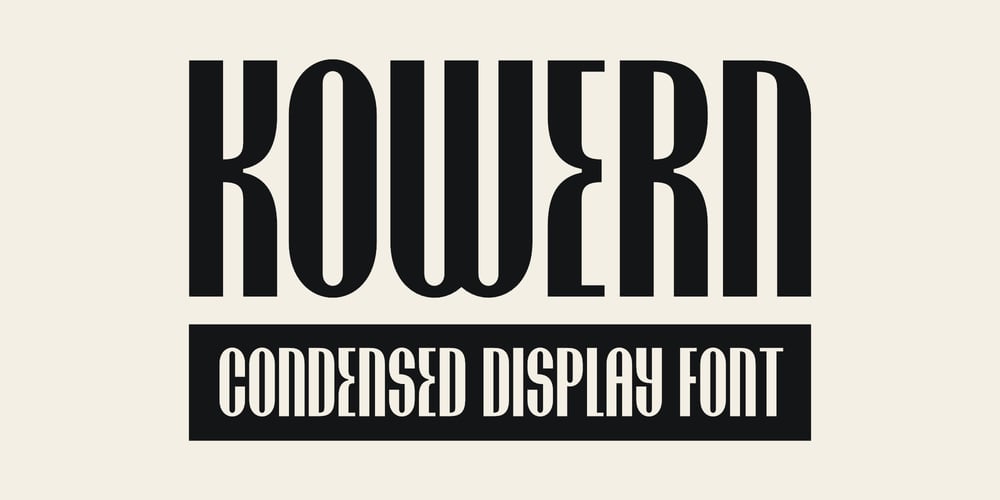
Kowern
Kowern font
Kowern Font Family was designed by Szymon Mandziarz and published by SMZ Design. Kowern contains 2 styles and family package options. Kowern is a modern and condensed font with a distinct look with experimental touches that give it an original look. It will work as a universal font for projects with a wide range of topics.Perfect for sweatshirts, t-shirts, banners, logo designs, sports branding, posters, apparel designs, magazine headlines, labels and much more.